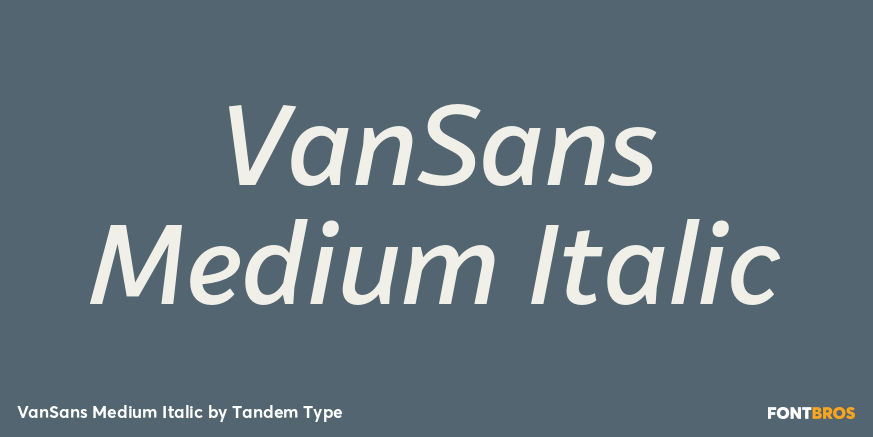
VanSans
Font Family by Tandem Type
VanSans is an elegant, modern sans serif inspired by the city of Vancouver—where industrial energy meets a friendly, open spirit. It blends humanist details carefully selected from typographic history without relying on a single source, creating a typeface that feels both timeless and contemporary.
With a generous x-height, open counters, and clear, legible forms, VanSans performs beautifully in print and on screen. Its 16 weights, from Thin to Black, make it perfect for editorial design, branding, advertising, and user interfaces
Supporting Pan European Latin, Vietnamese, and Cyrillic, VanSans comes loaded with OpenType features: small capitals, old-style and tabular figures, arrows, and case-sensitive punctuation. With over 1,400 characters per style, it’s built for flexibility and adaptability
—ready to meet the demands of today’s typographers and designers.
Whether you’re crafting a clean, straightforward layout or a complex typographic hierarchy, VanSans is ready to be challenged, and to shine.